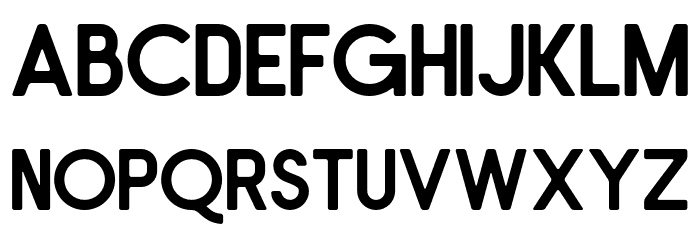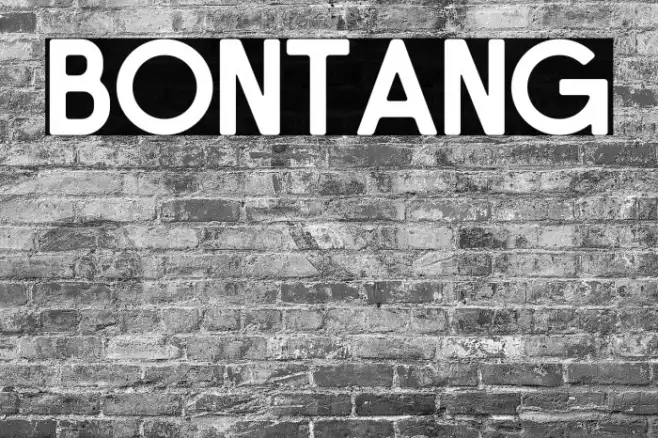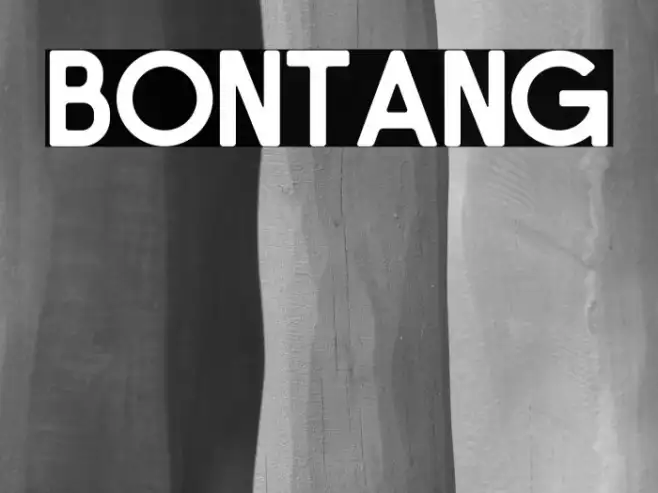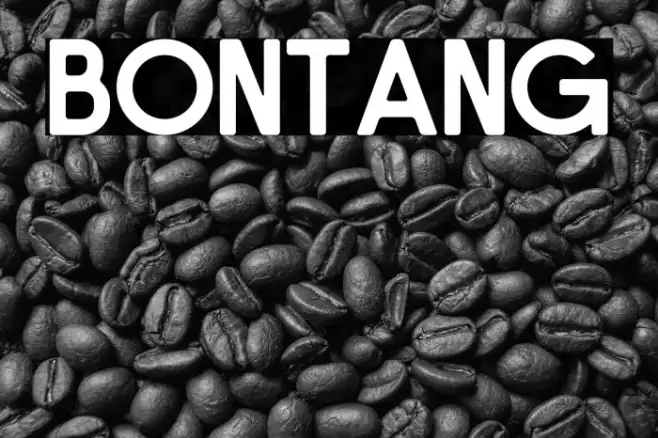
Bontang Font
This font features bold, geometric letterforms with a modern and clean aesthetic. The characters are uniformly thick, providing a strong and impactful presence. The uppercase and lowercase letters maintain a consistent style, with rounded edges that soften the overall look. The numerals are equally bold and clear, ensuring readability. Special characters are designed to match the robust style of the alphabet, making this font versatile for various applications. Its simplicity and strength make it suitable for both digital and print media.
A bold, geometric font with a modern and clean aesthetic.
- Proposed Projects: Ideal for branding, advertising, headlines, and digital media projects.
- Use Case: Headlines, Logos, Branding